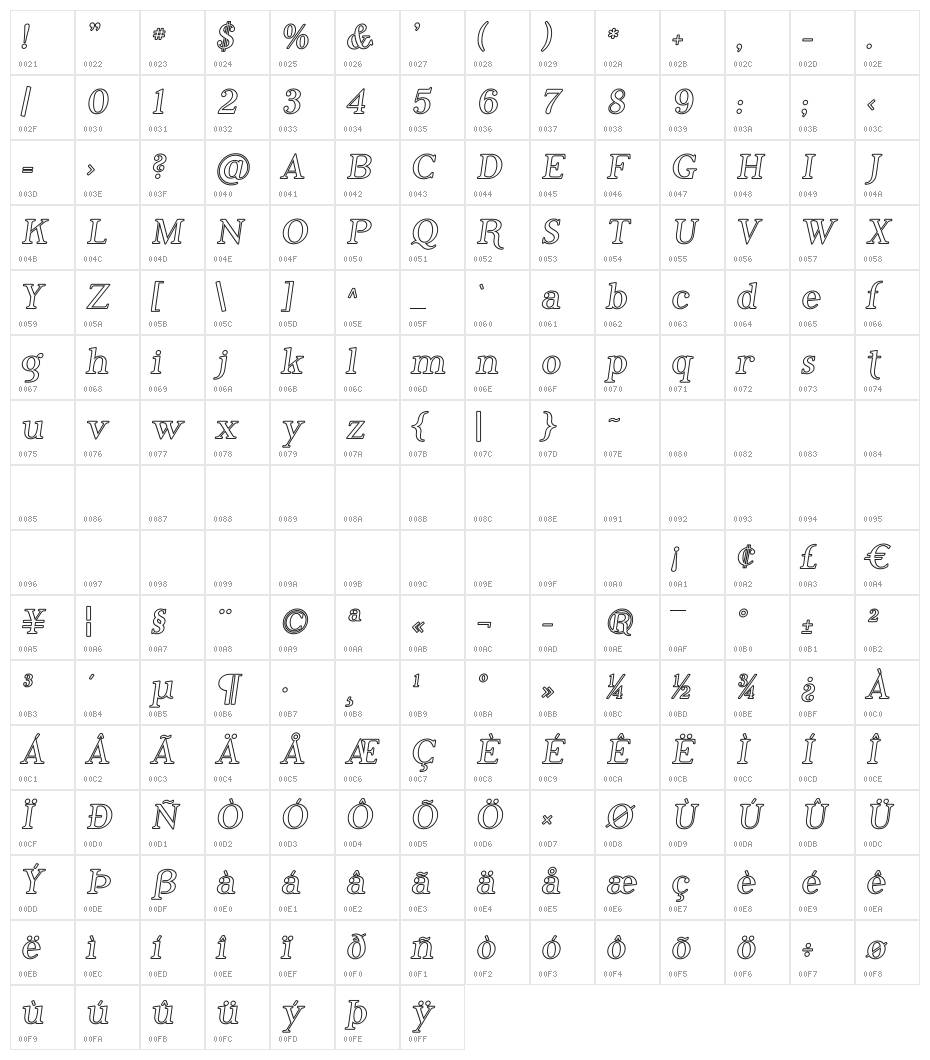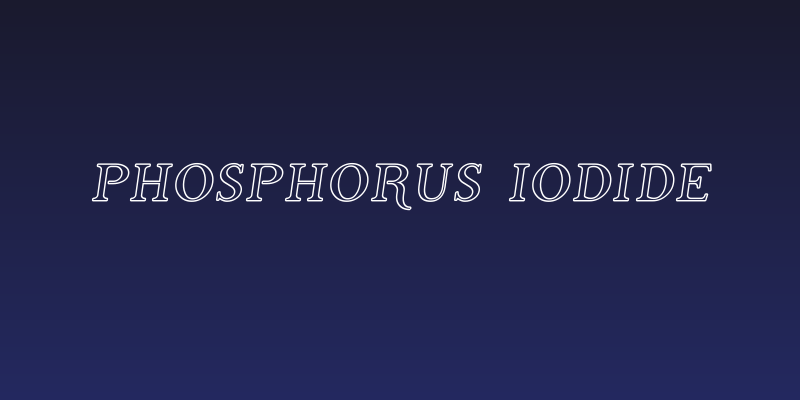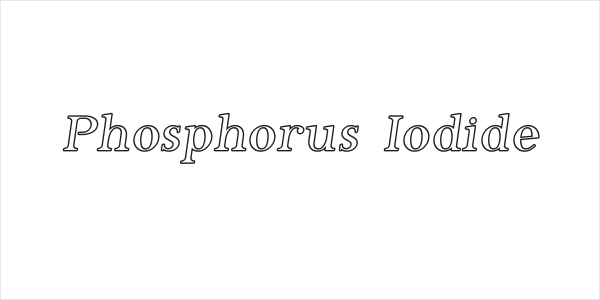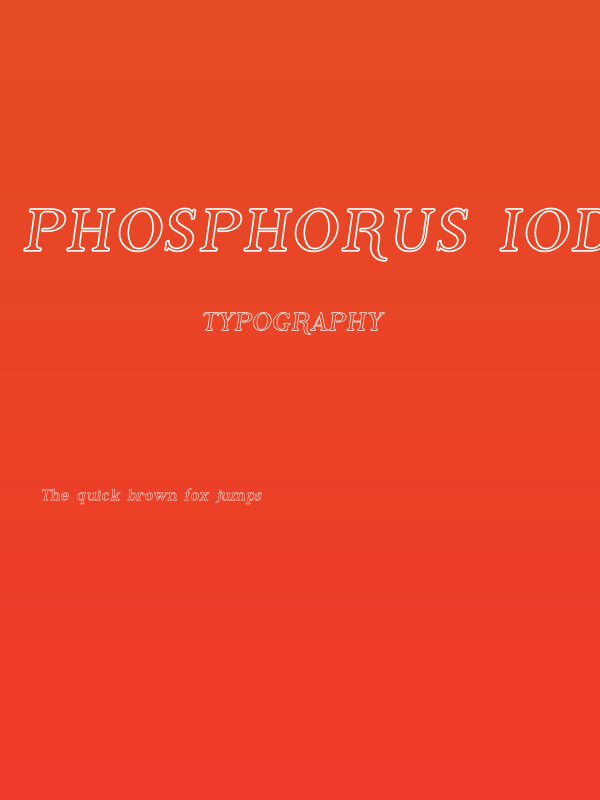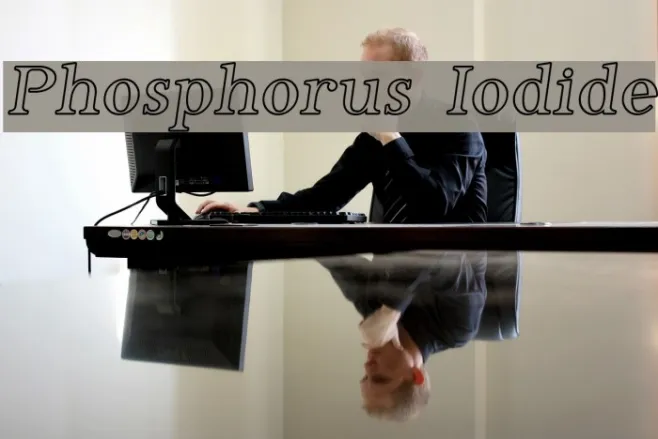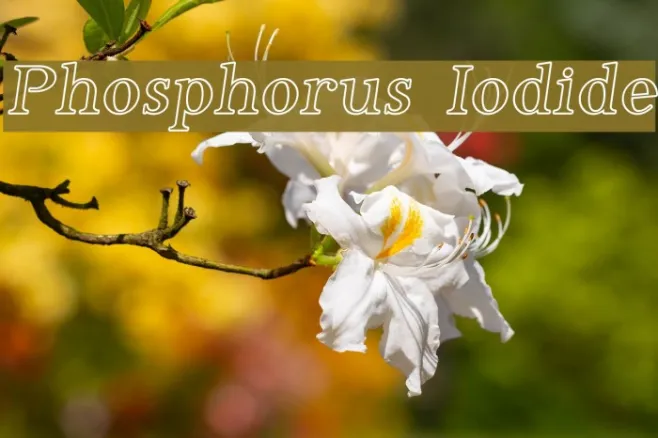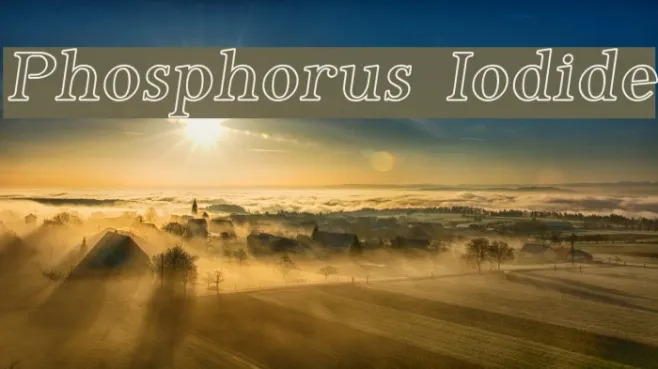
Phosphorus Iodide Font
Phosphorus Iodide Description
This font features a distinctive outline style with a classic serif structure. Each character is defined by a bold outer line, giving it a unique, eye-catching appearance. The uppercase and lowercase letters maintain a traditional serif form, while the numbers and special characters follow the same outlined design, ensuring consistency across all glyphs. The font's design is both elegant and bold, making it suitable for a variety of creative applications. Its high contrast between the outline and the inner space adds to its visual appeal, making it stand out in any design context.
| Overall Style | Classic, Decorative |
| Proposed Projects | Ideal for headlines, posters, branding, and any project requiring a striking, elegant typeface. |